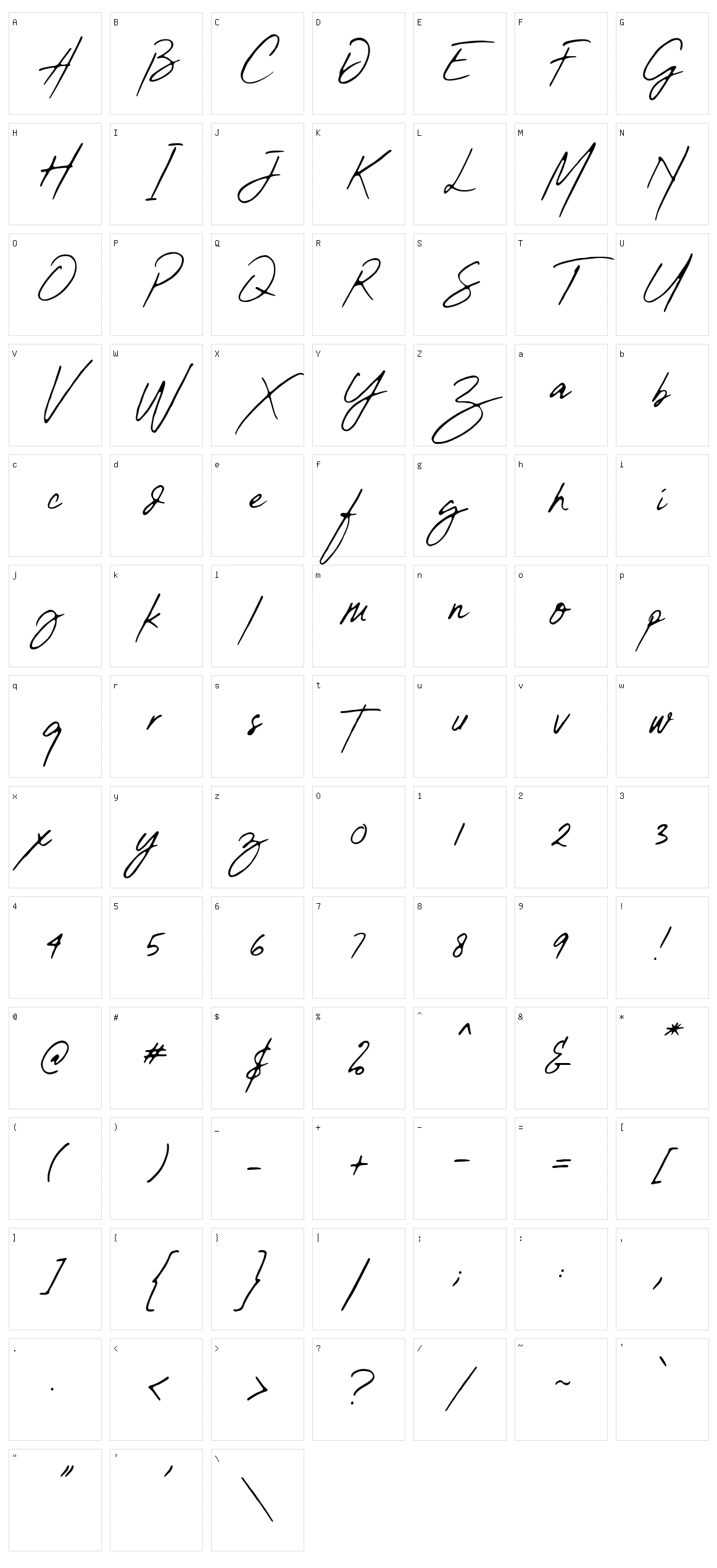
The free font Gloriousity One is carefully designed by Seno Aji, showcasing a thoughtful balance of creativity and usability and falls under the Script font style. When you download the ZIP file, it contains only 55.85 KB of font files, making it lightweight and quick to download. Please review the license details below to understand permitted usage and distribution rights. If license information is not available, we recommend using this font for personal projects only or contacting the author directly for commercial usage permissions.